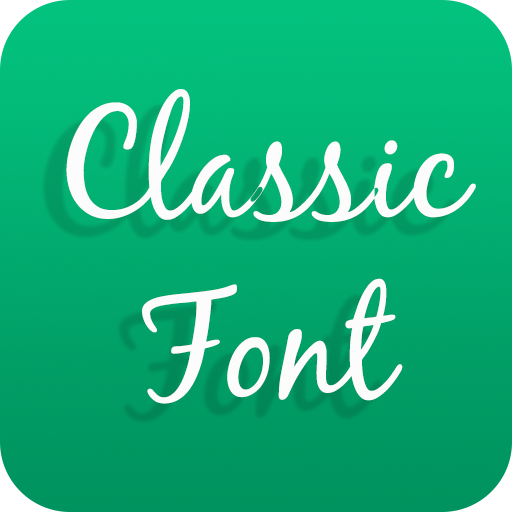
Classic Font for OPPO - Handwr
Description of Classic Font for OPPO - Handwr
This application is a free package of comic font, for you to change the font appearance of your Android cellphone or tablet.